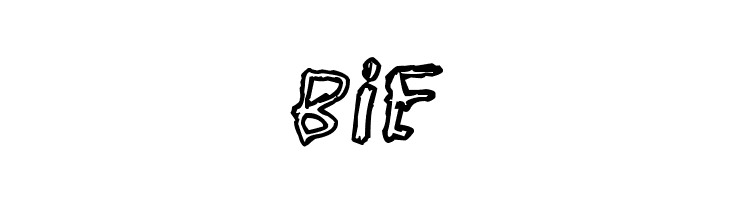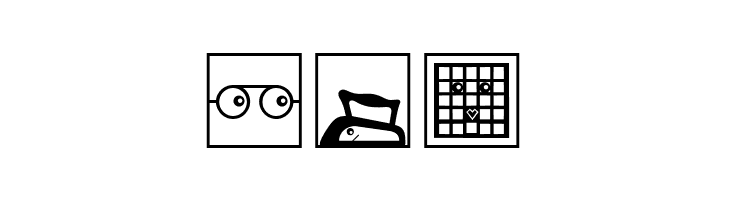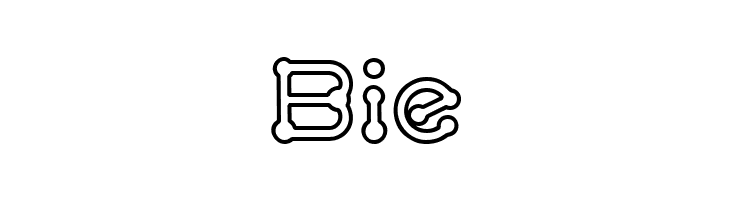
A decorative dingbat font with cartoon character faces.
A decorative dingbat font featuring cute cartoon faces.
A decorative dingbat font featuring quirky cartoon characters.
A bold, playful font with pierced, rounded elements and consistent thickness.
A bold, decorative font with interconnected lines and circular nodes, offering a futuristic look.
A playful, pierced outline font with a modern and decorative style.
A modern, geometric font with lines connected by circular nodes.
A playful, pierced font with bold, rounded characters and a modern outline style.
A bold, geometric pictogram icon set with a technical and utilitarian feel.
A bold, graffiti-inspired font with a rough, hand-drawn look.